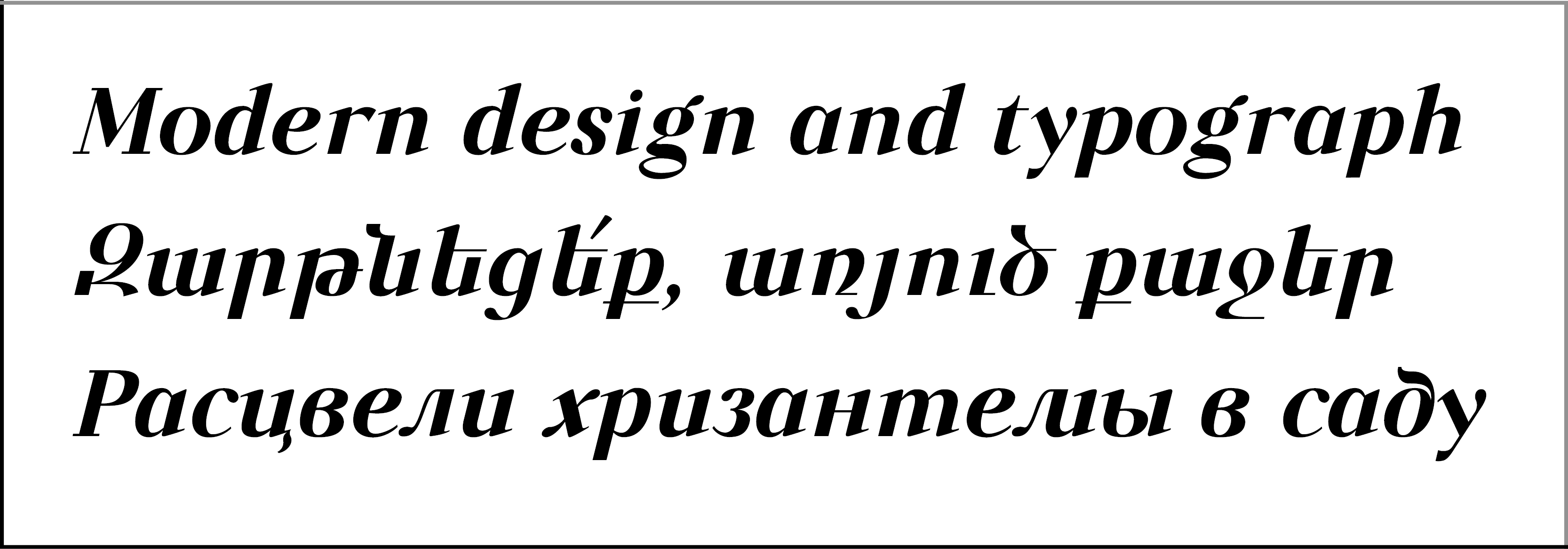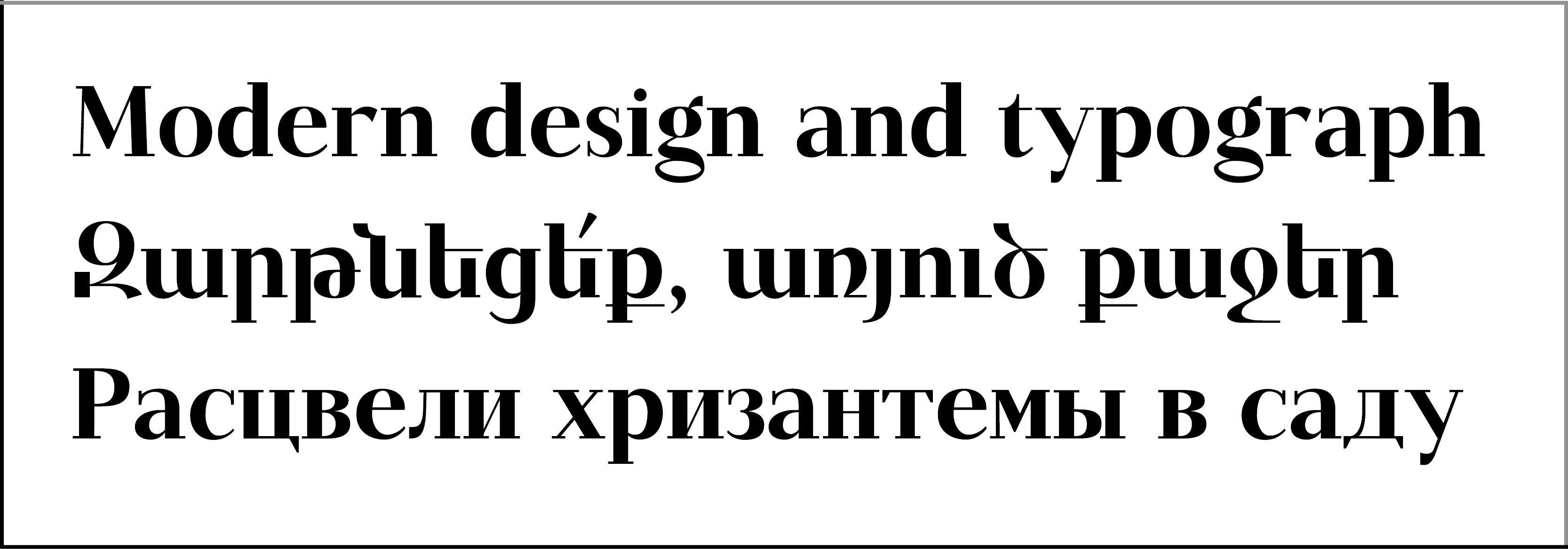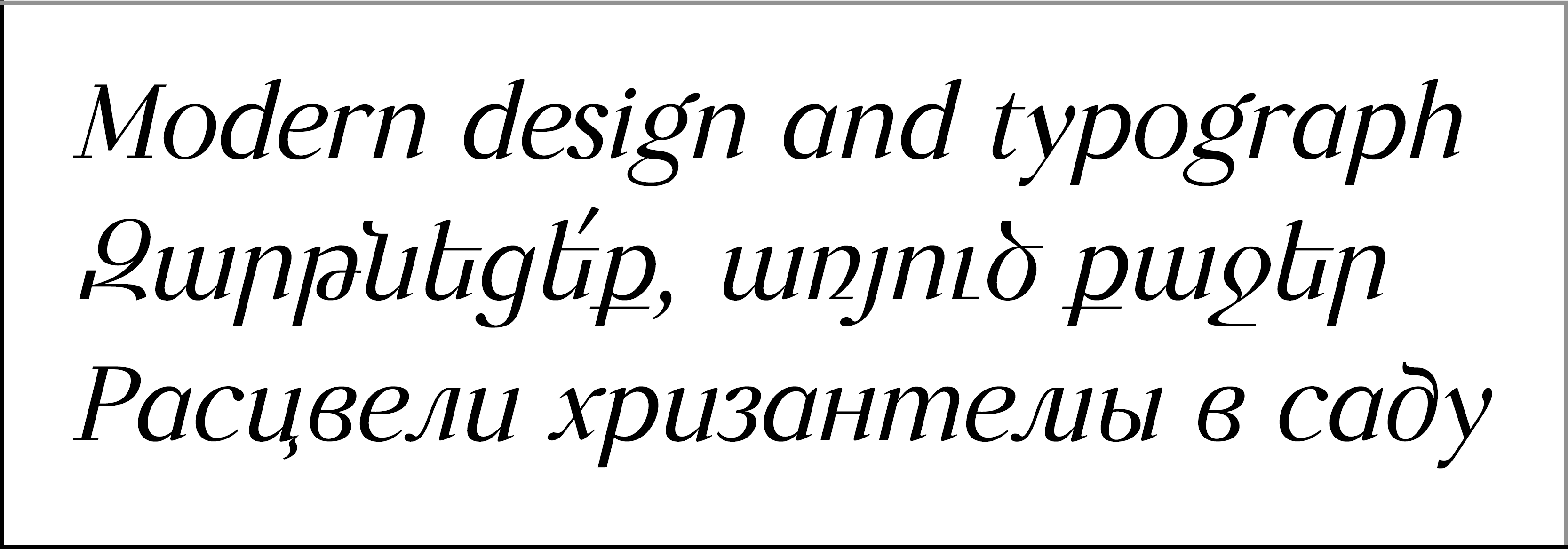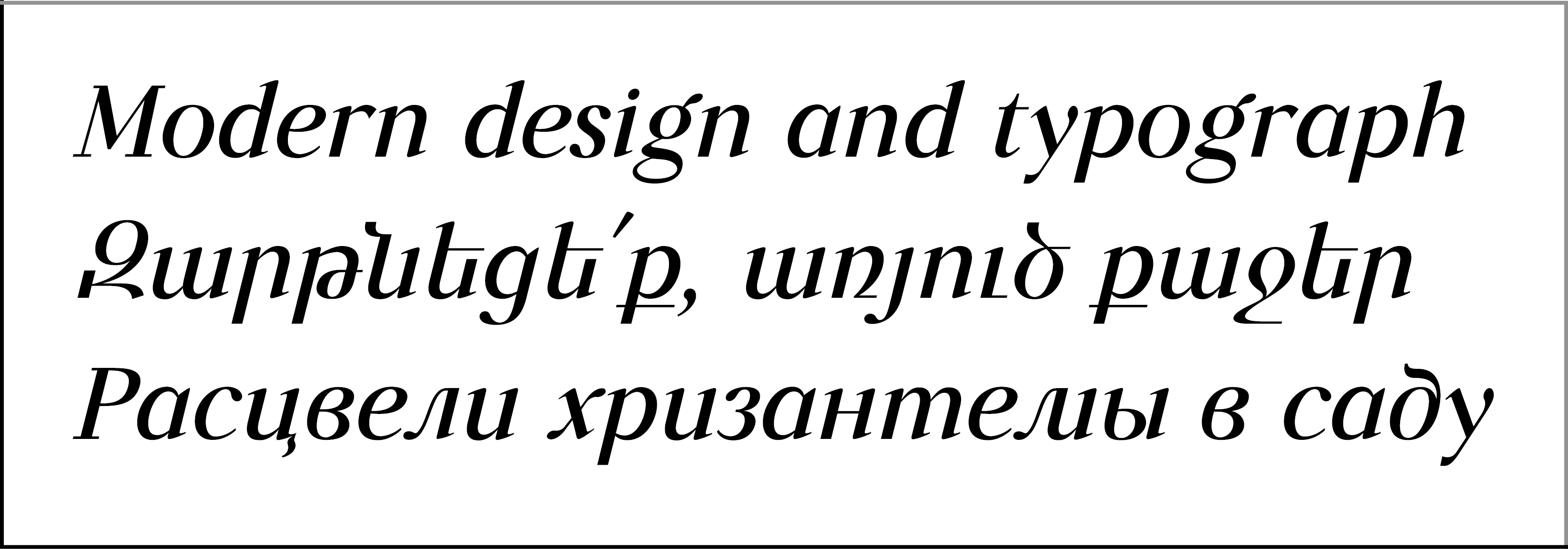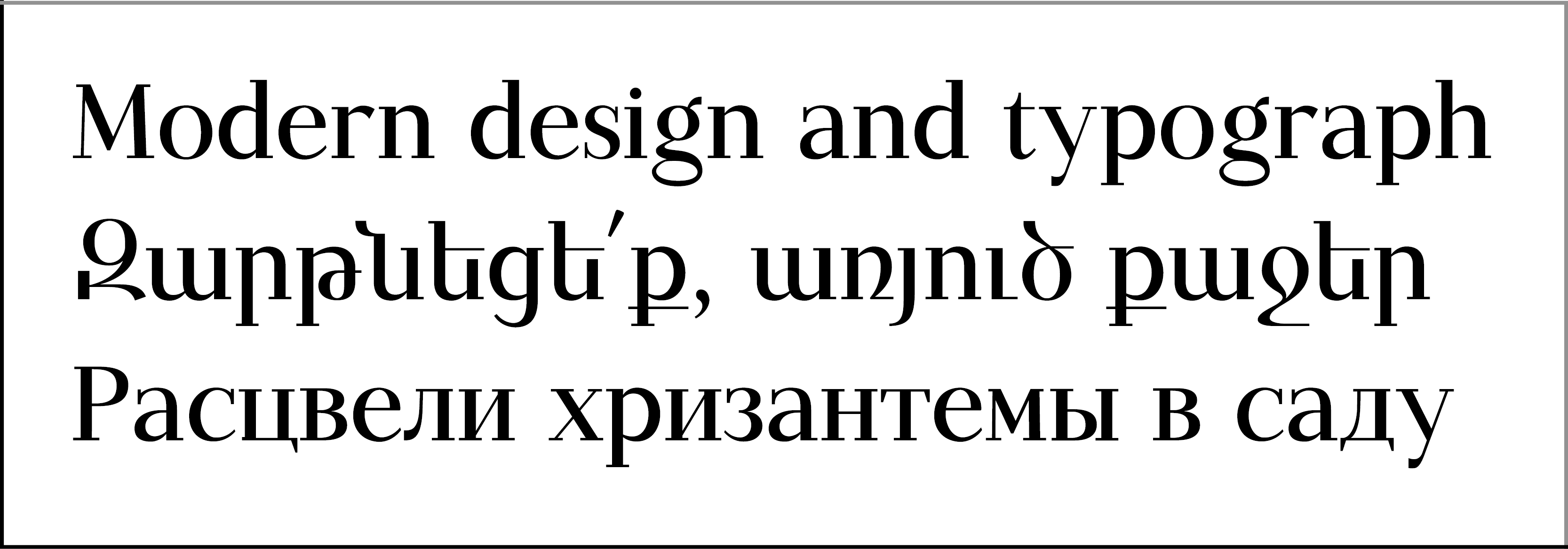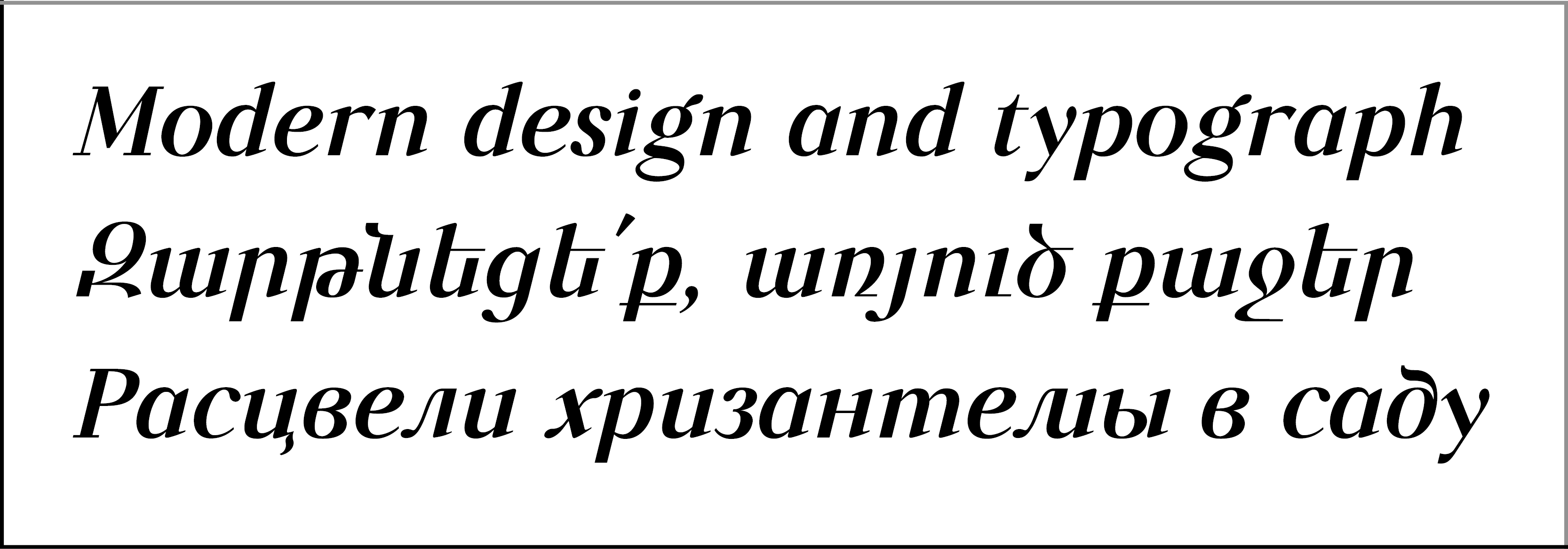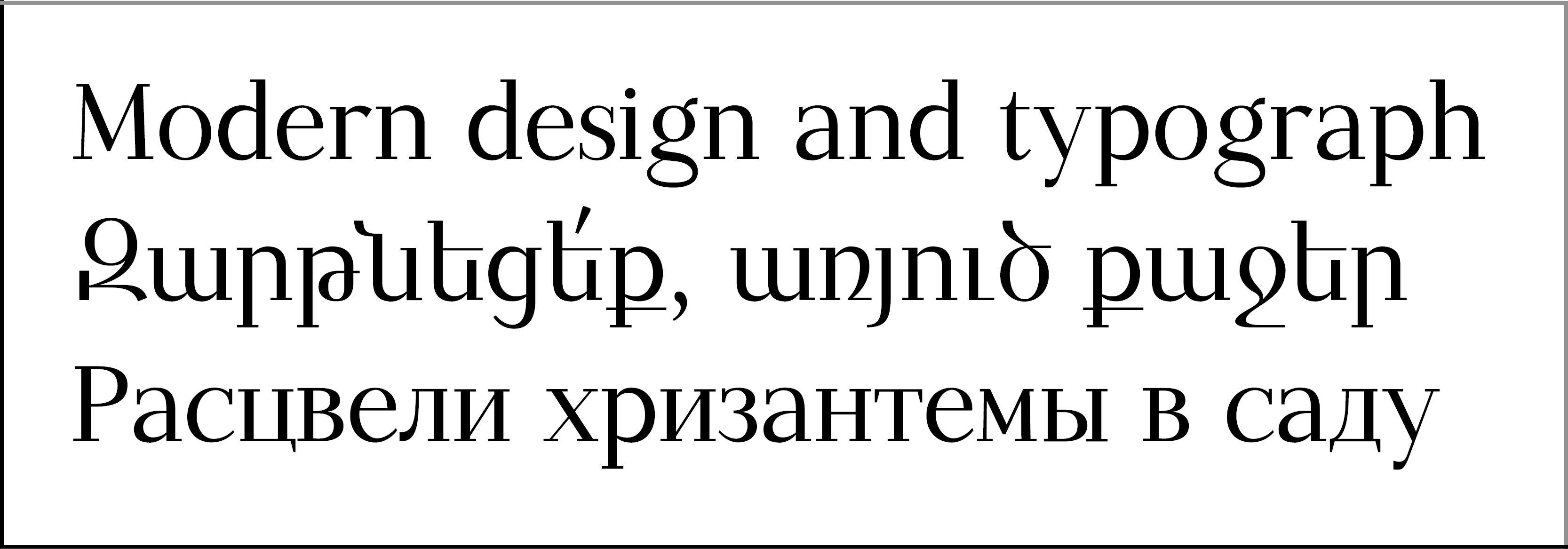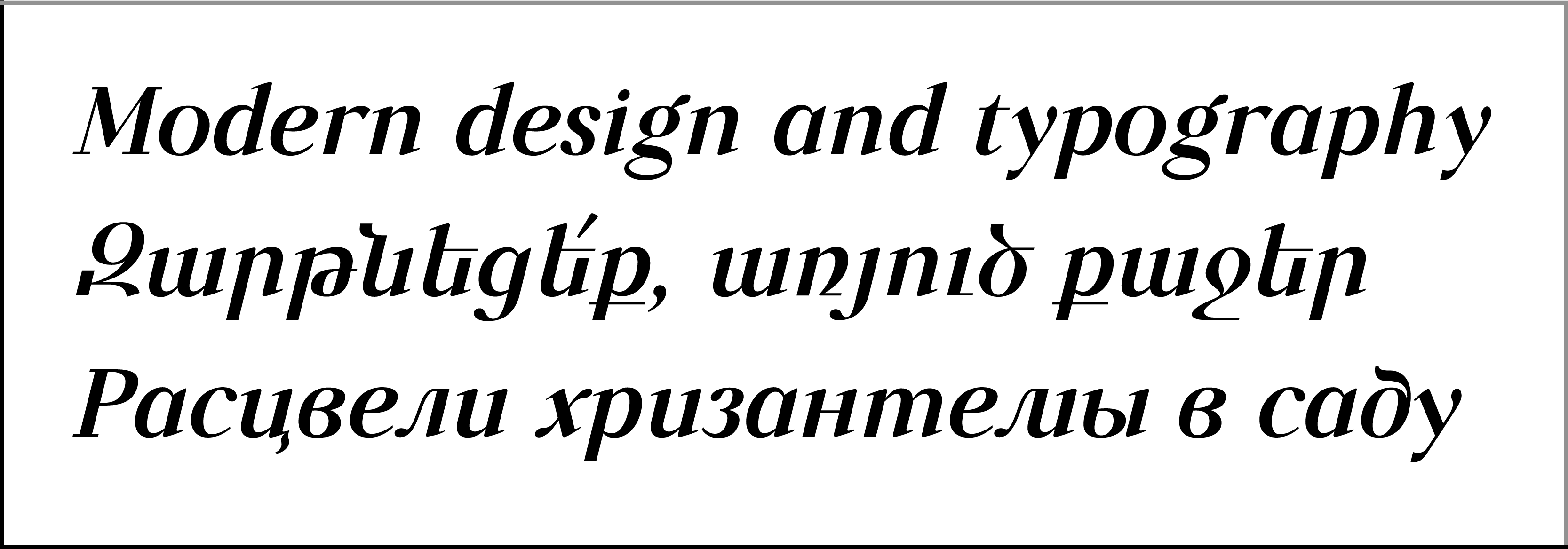
ASF Diana
Designer: Angella Poghosova
Design date: 2019
The font family includes Armenian, Latin and Cyrillic alphabet systems.
The font can be used as a text and title font. With standard and advanced ligatures.